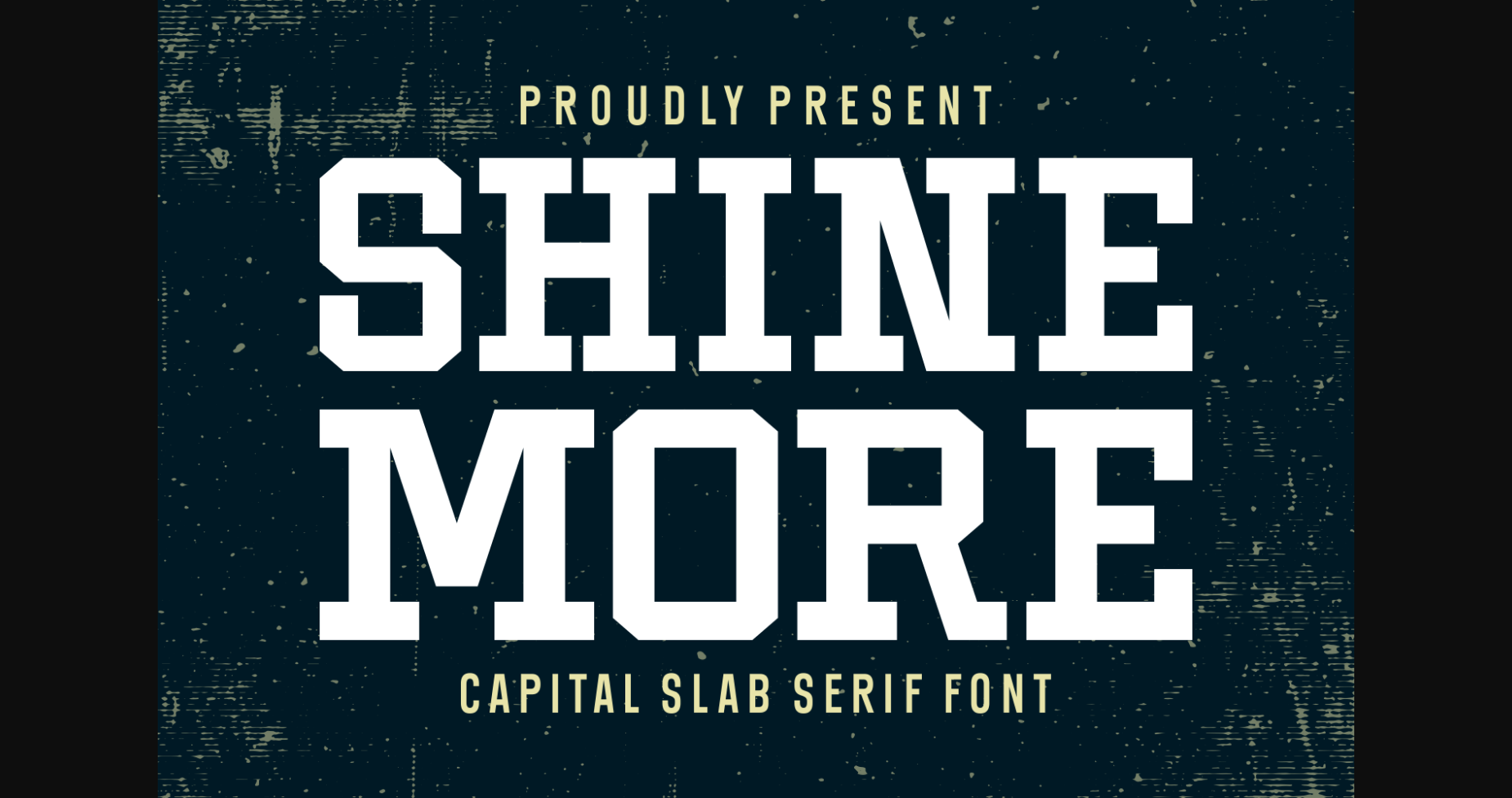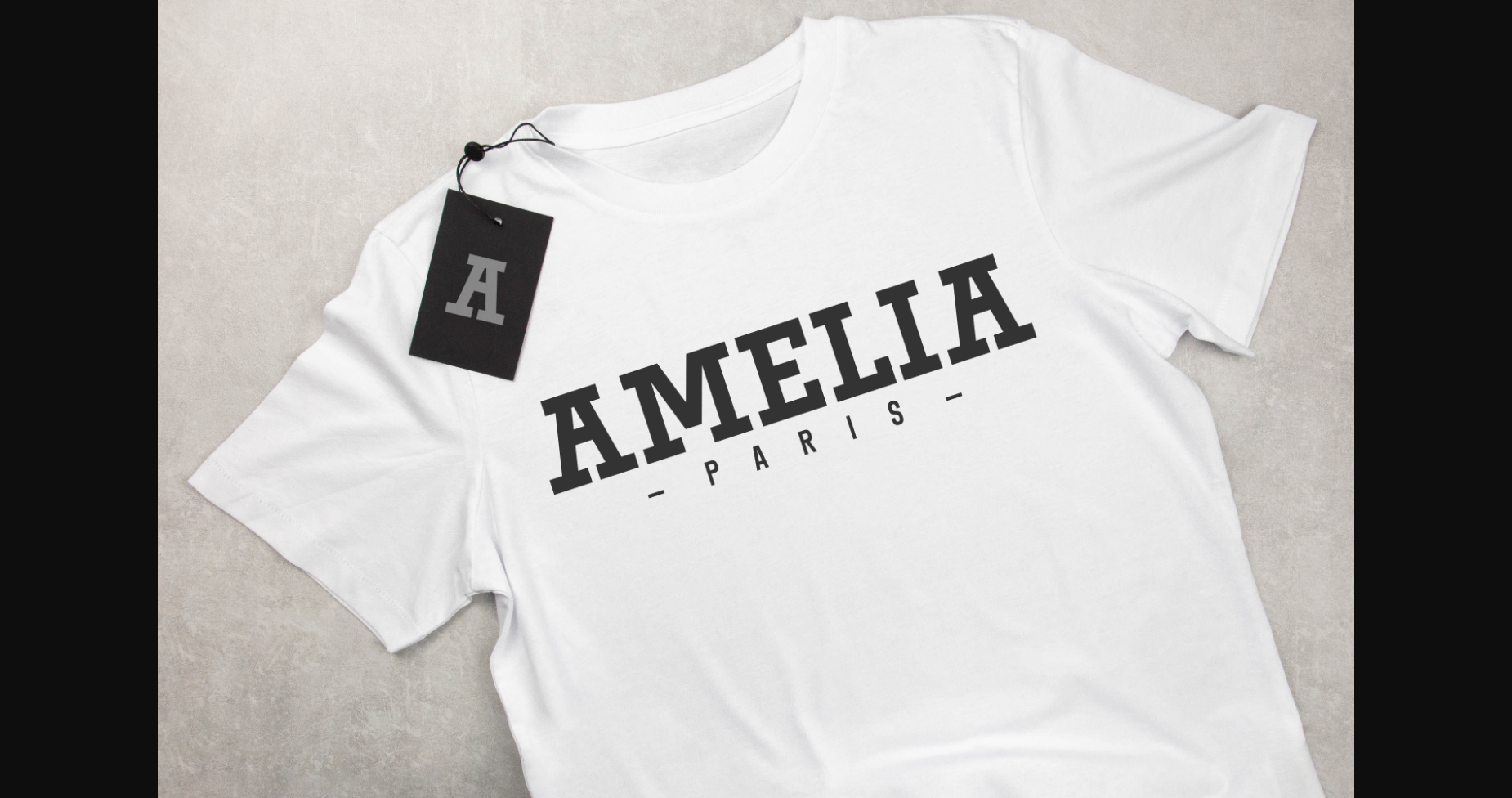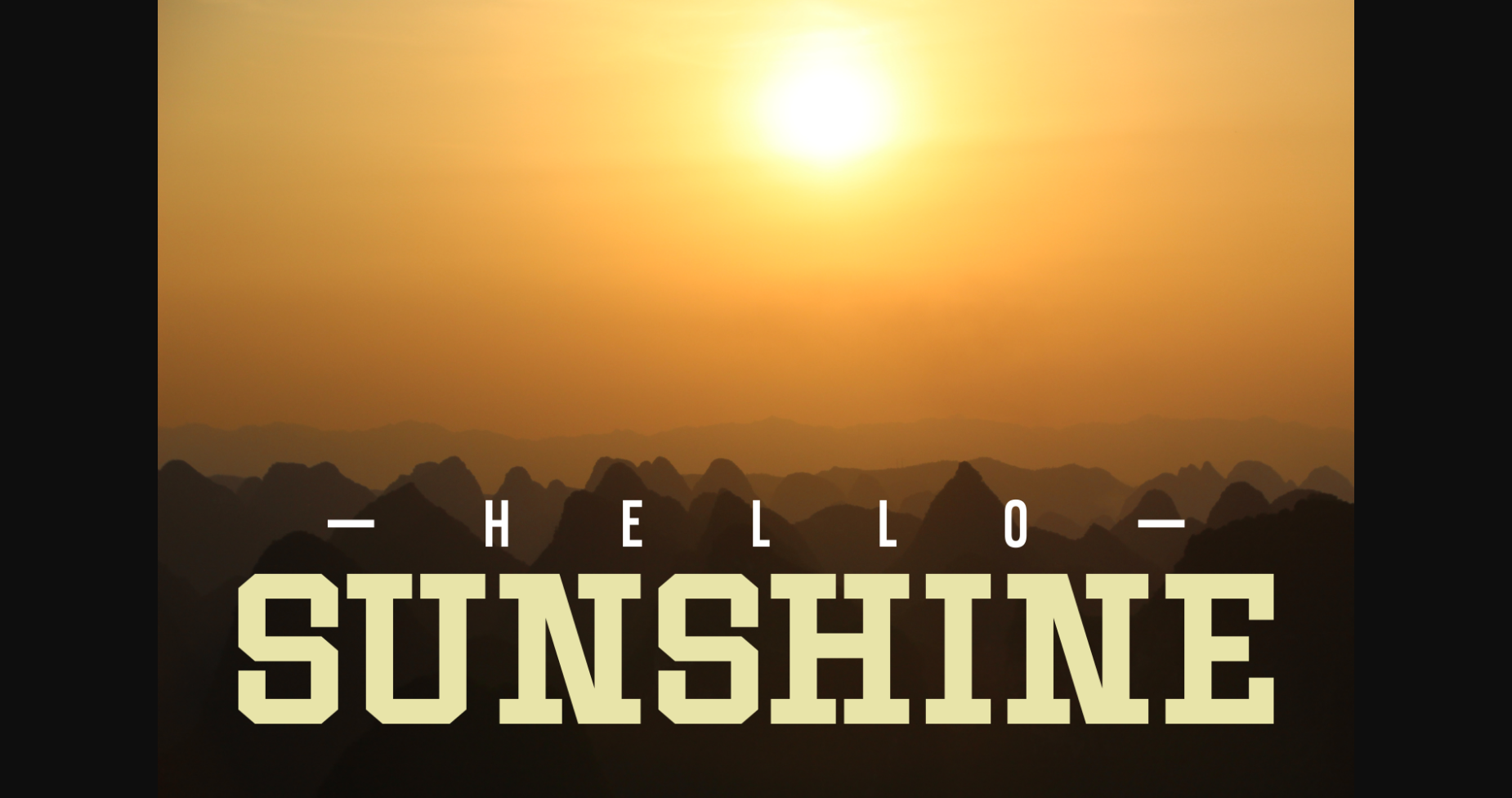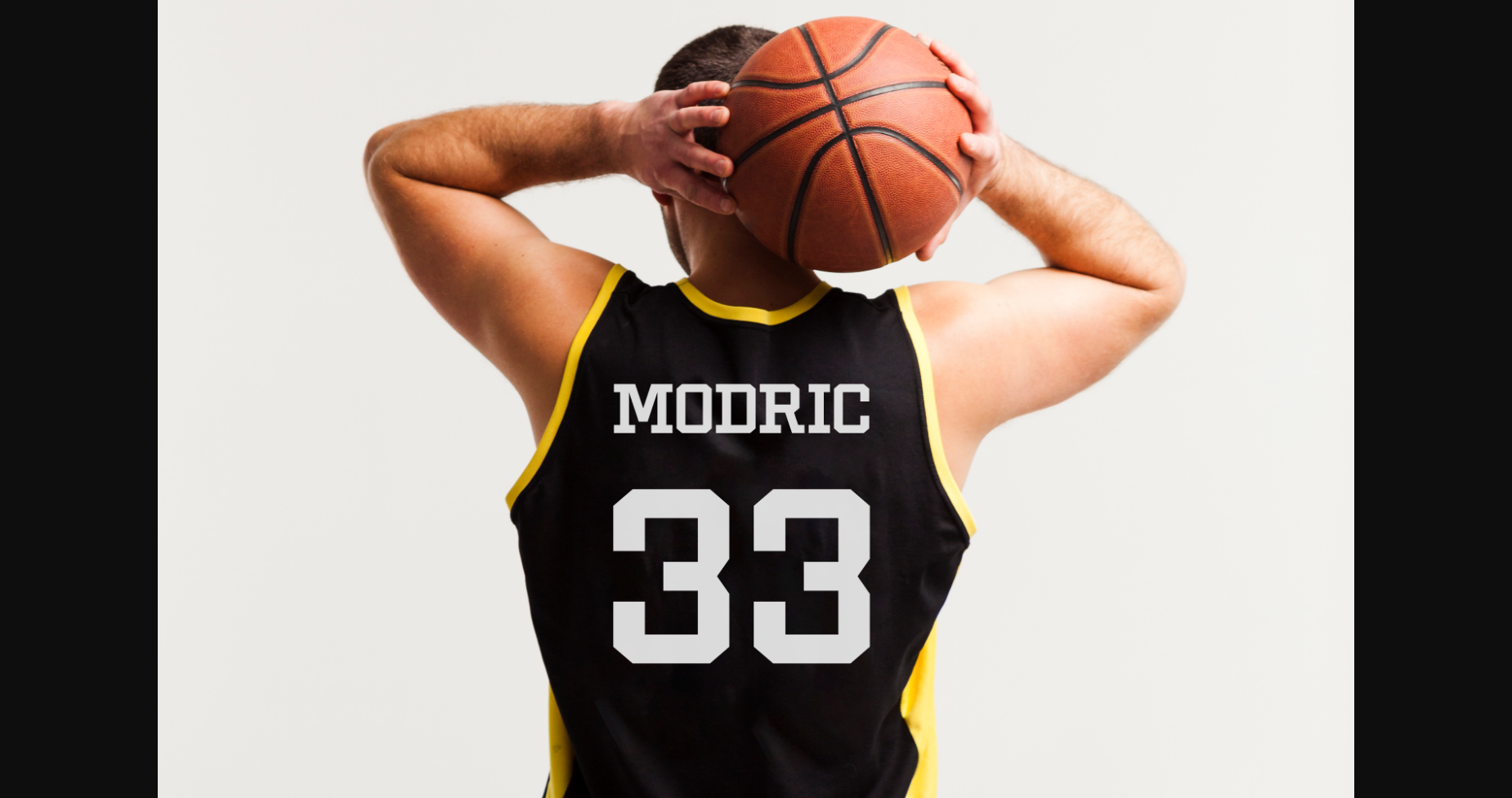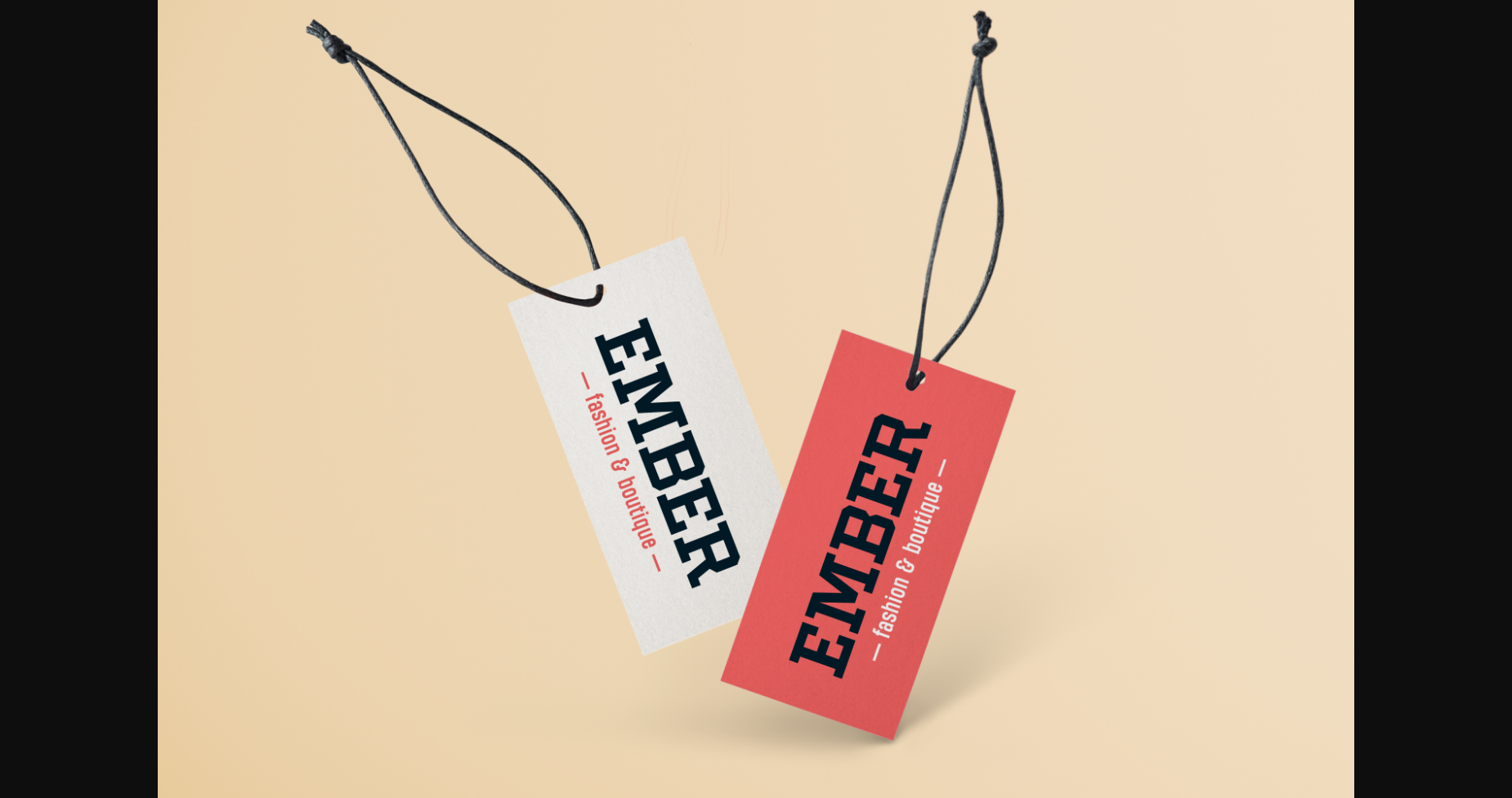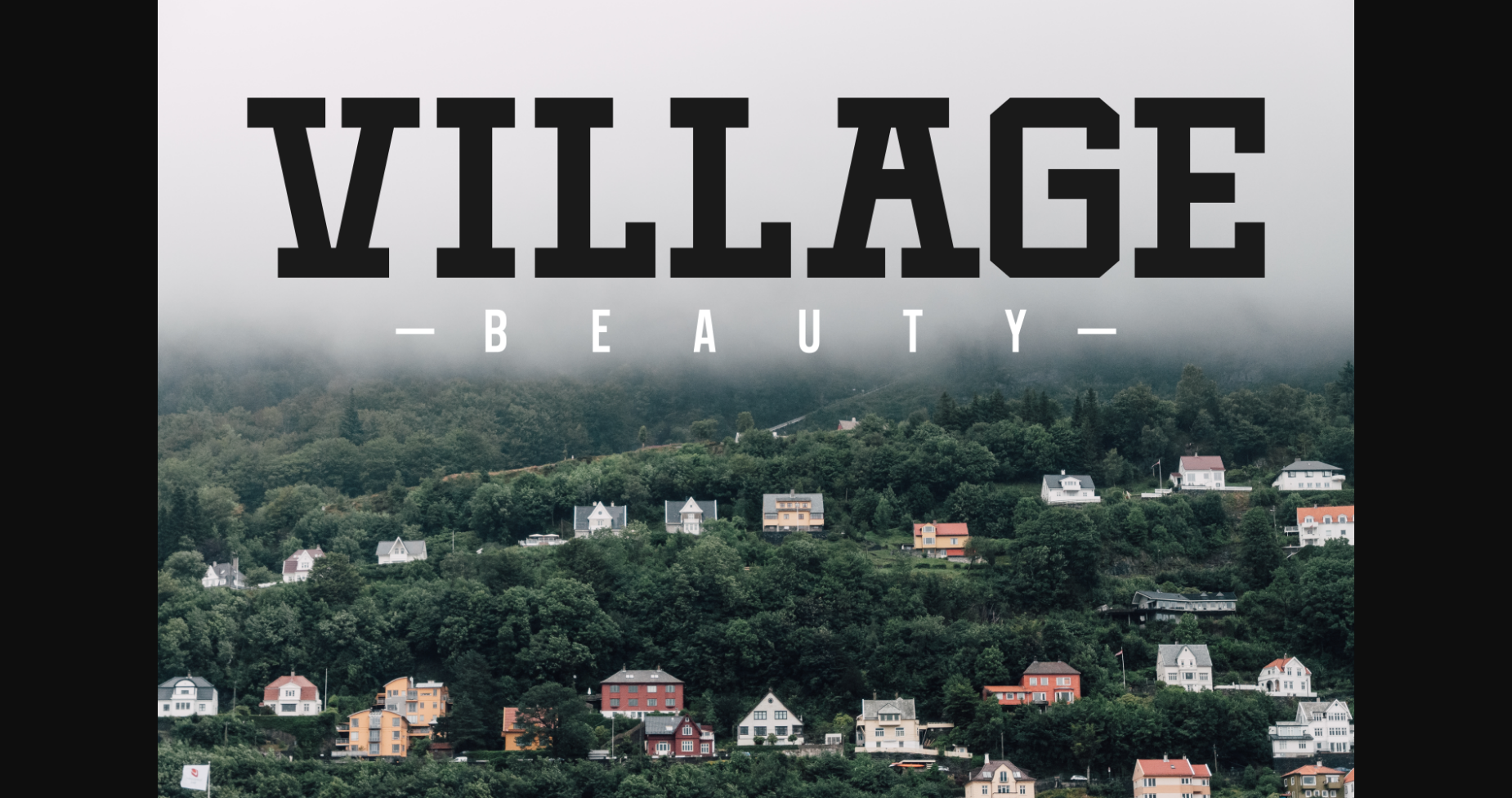
Shine More Font
About Shine More Font
Shine More is a bold and assertive sans serif font. No matter the topic, this font will be an incredible asset to your fonts’ library, as it has the potential to elevate any creation.